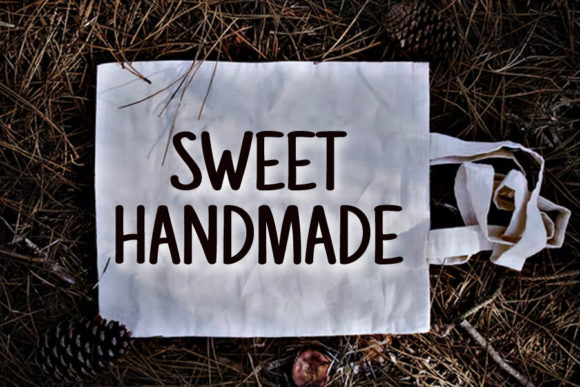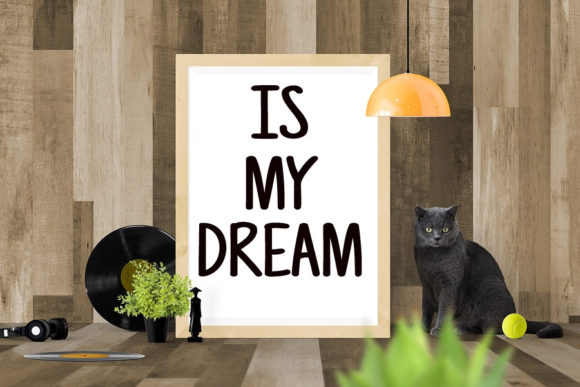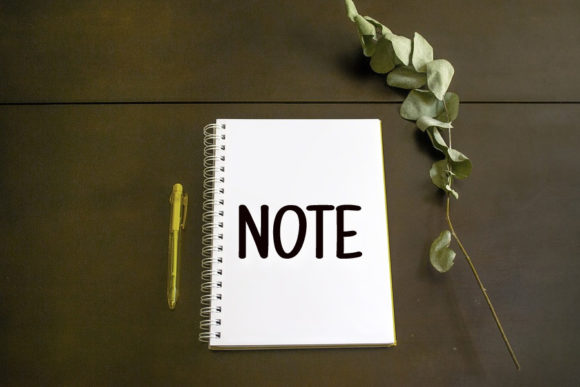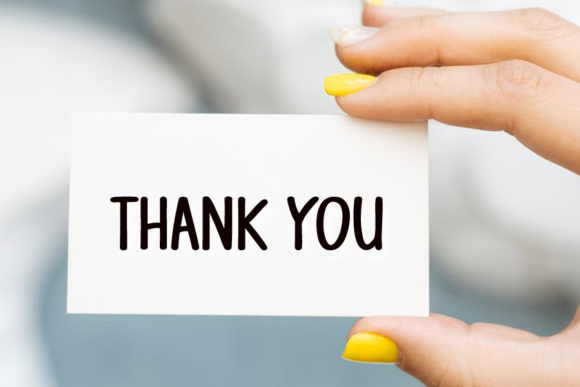
Sweet Home Font
Sweet Home This font is a fresh and beautiful font, good for your design purposes such as Youtube banners, Cover Logo Mockups, Wedding Invitations, Id Cards, Flayer, Crafts. By using this font your business will progress and develop. Apart from that this font is simple and unique.